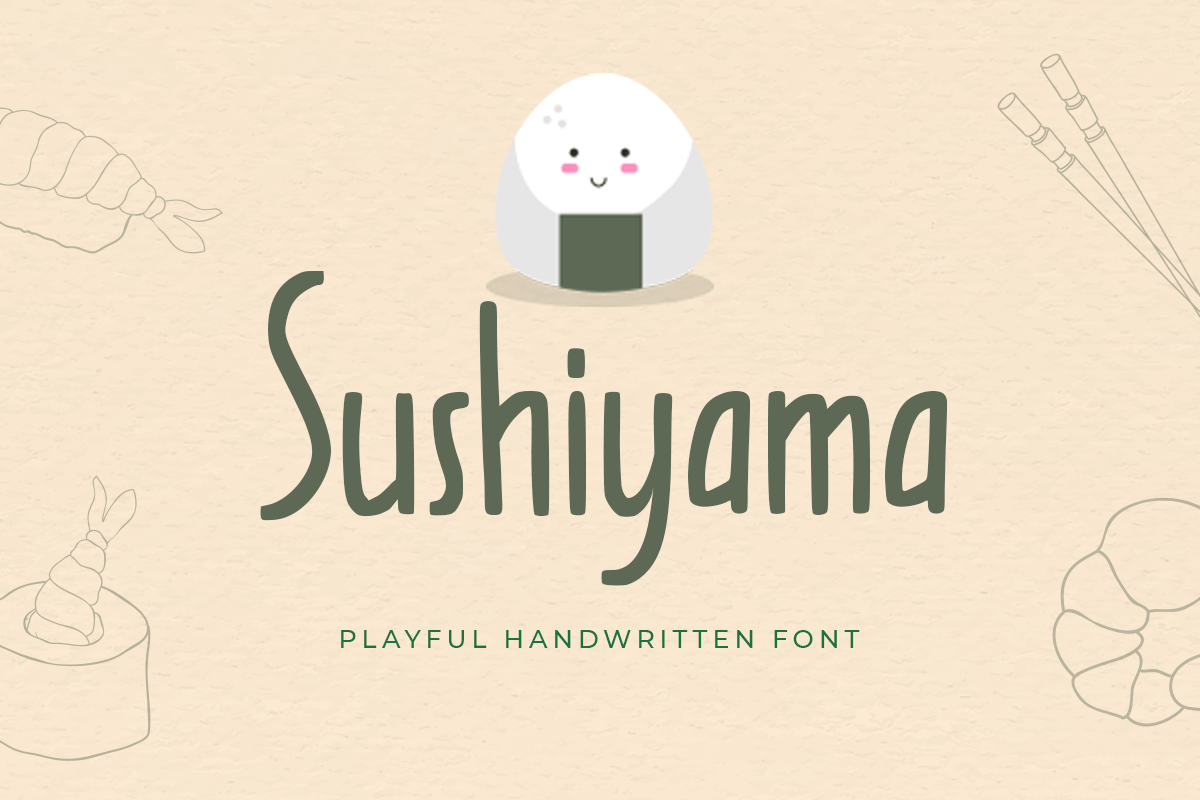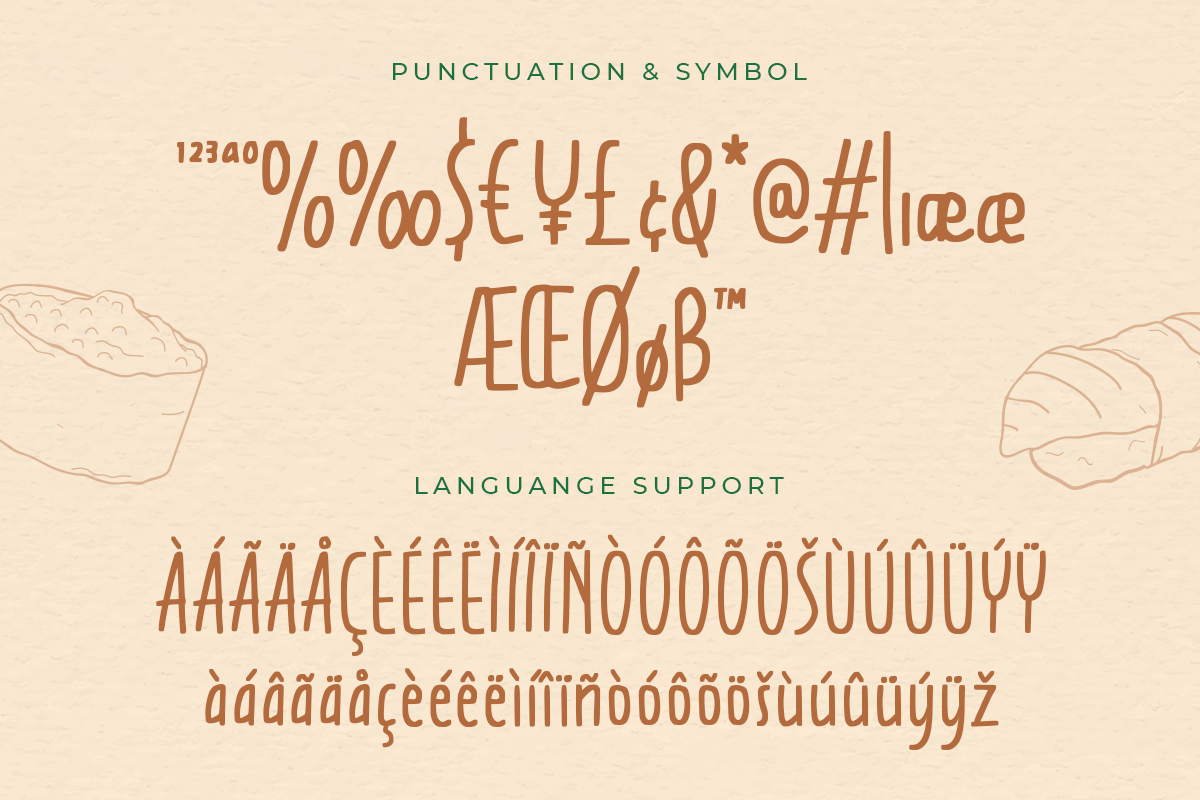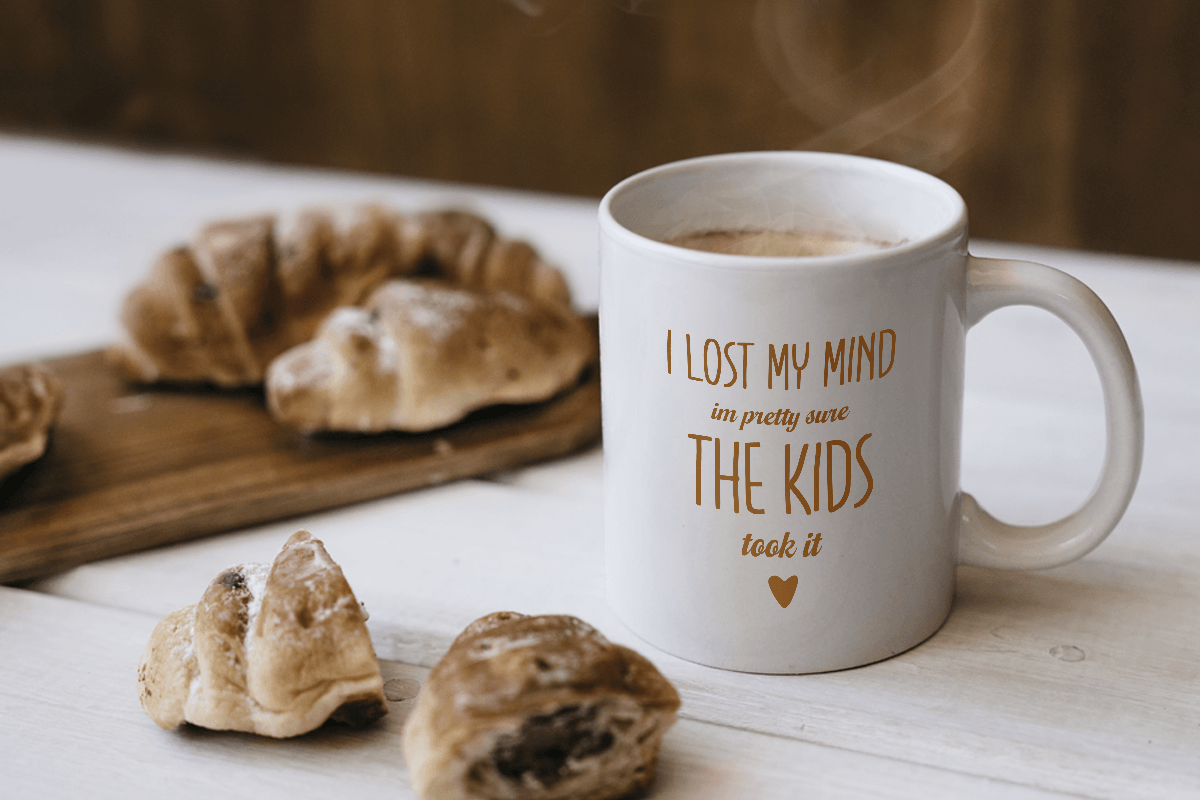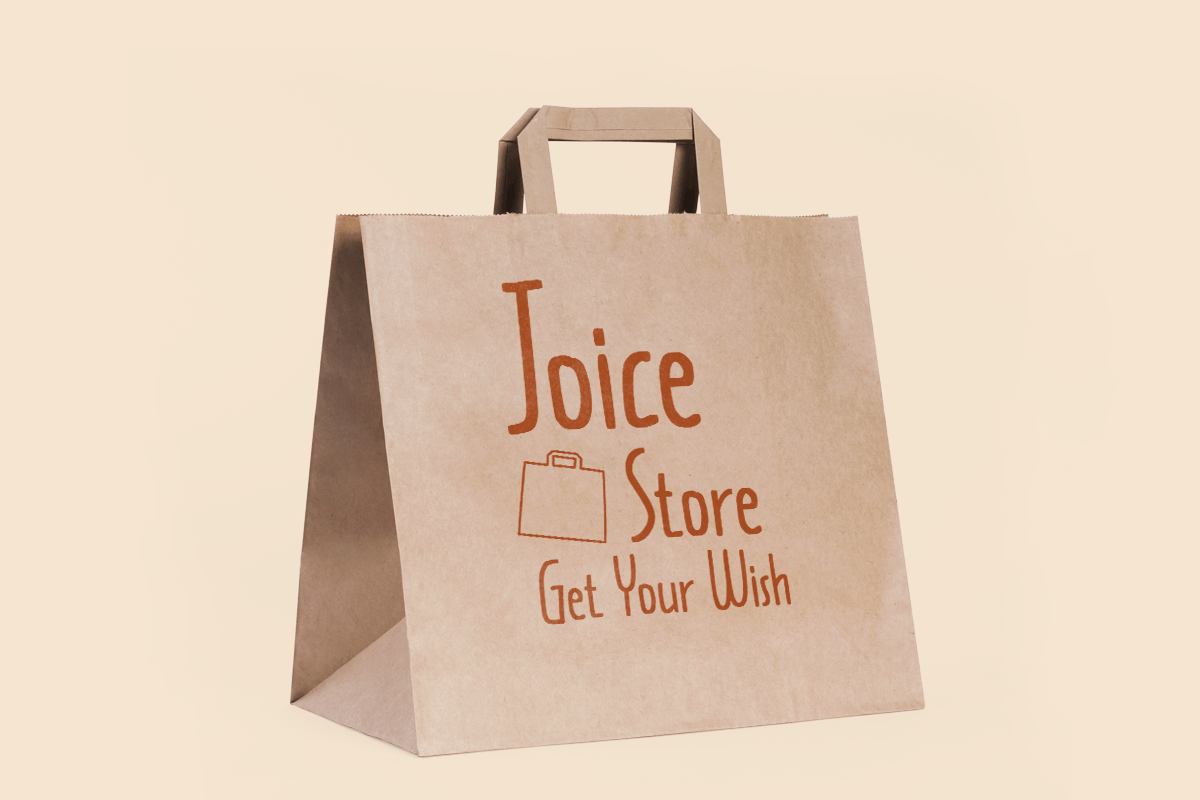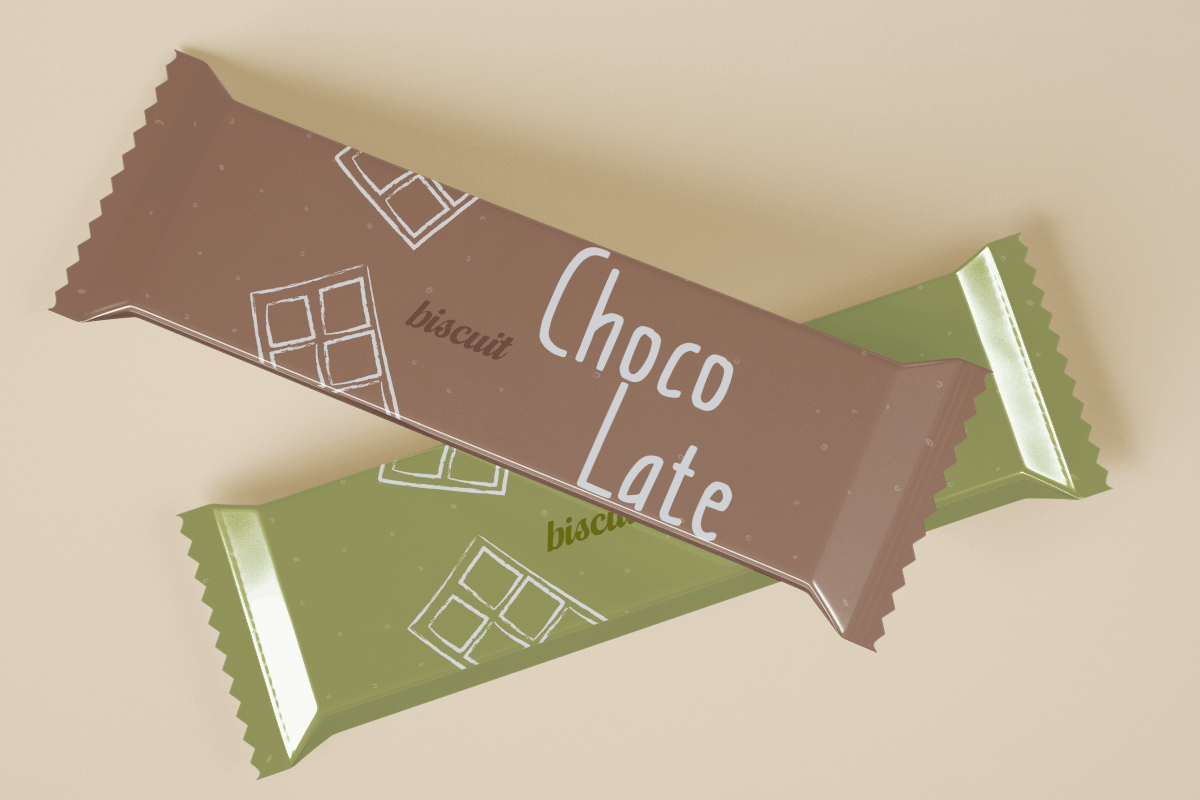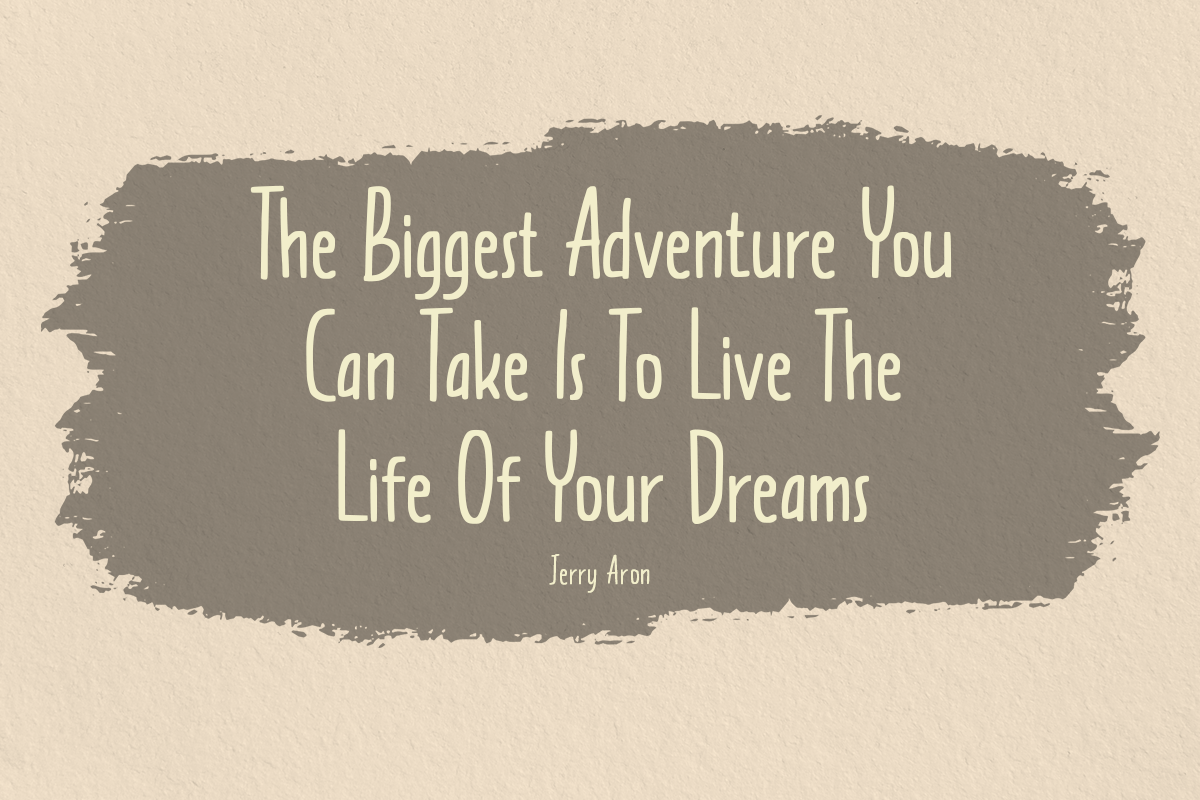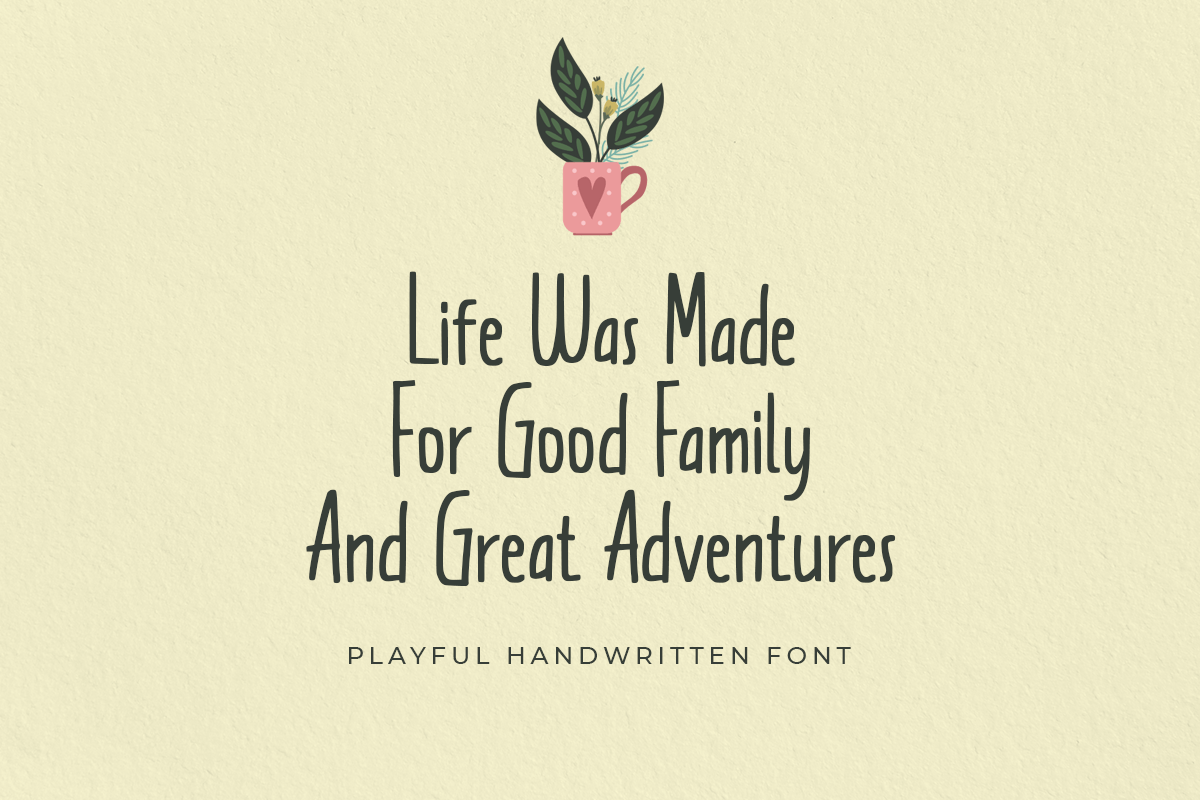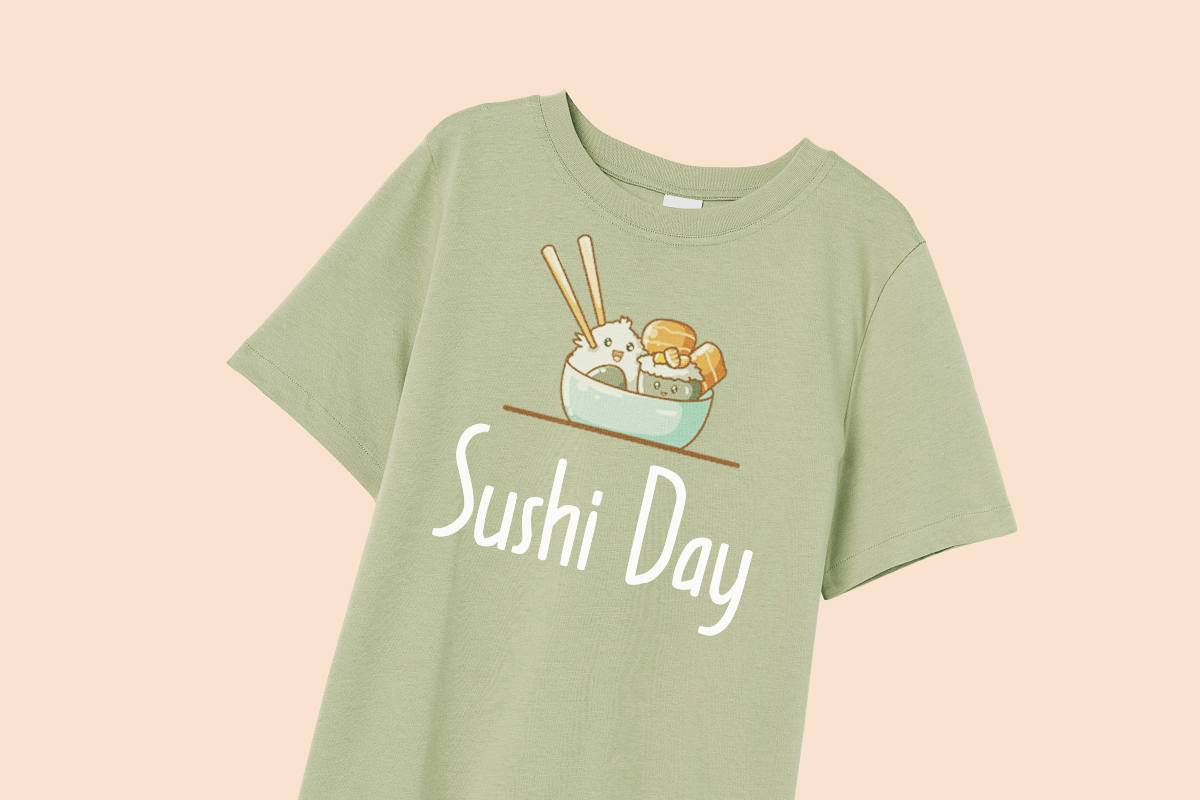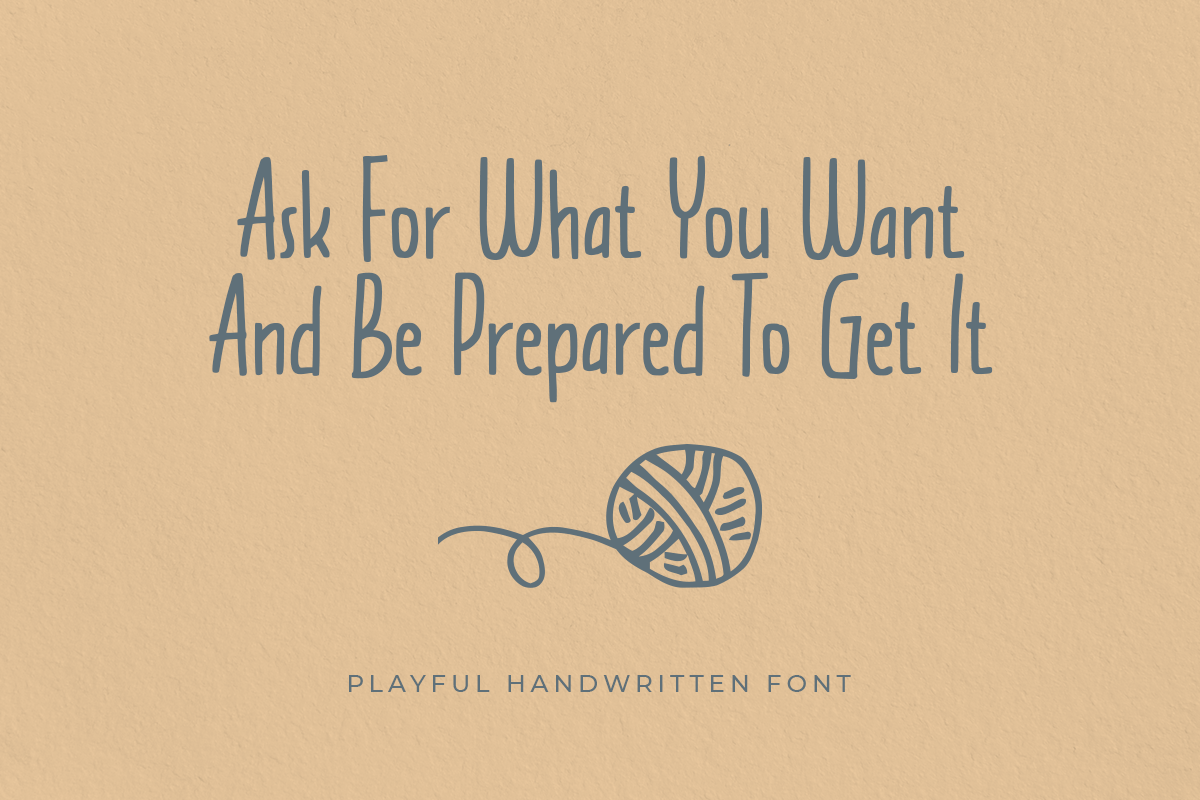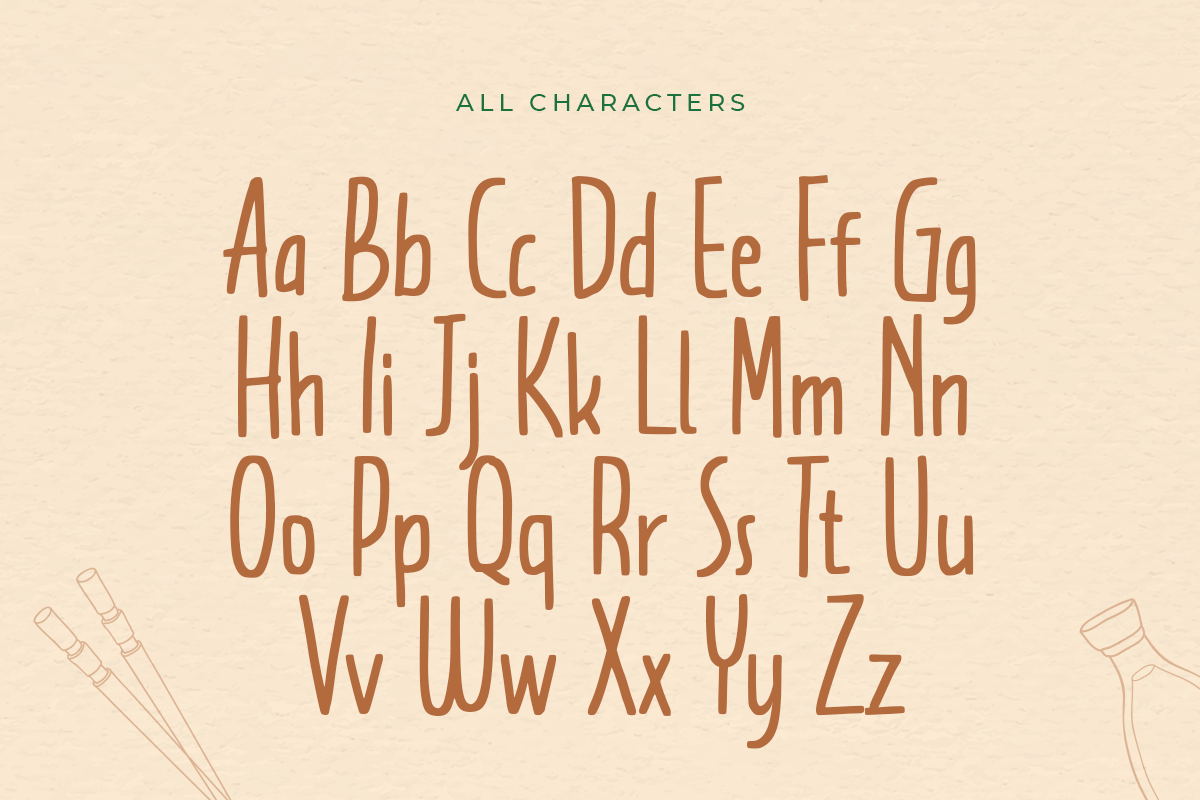
Sushiyama
-Playful Handwritten Font
Sushiyama
Sushiyama is a Playful Handwritten Font that's perfect for Headline, Thumbnail or Merchandise. This font specially crafted for your design projects such as banner, poster, flyer, website design, product packaging, merchandise, pillow print and so many more with easy to use but standing out results are so amazing.
Enjoy to Design any your needs with standing out, unique, and authentic feels.